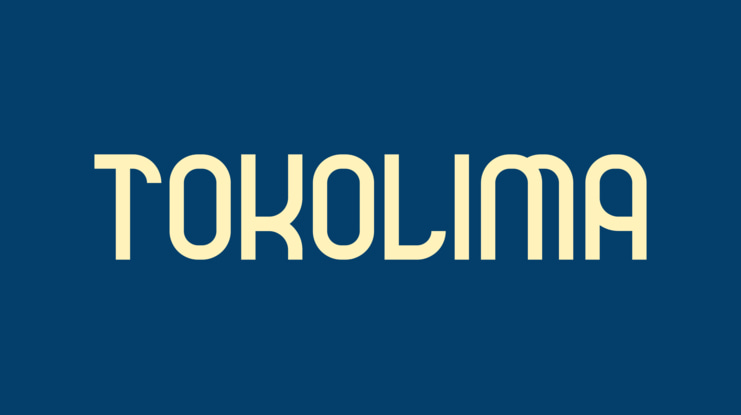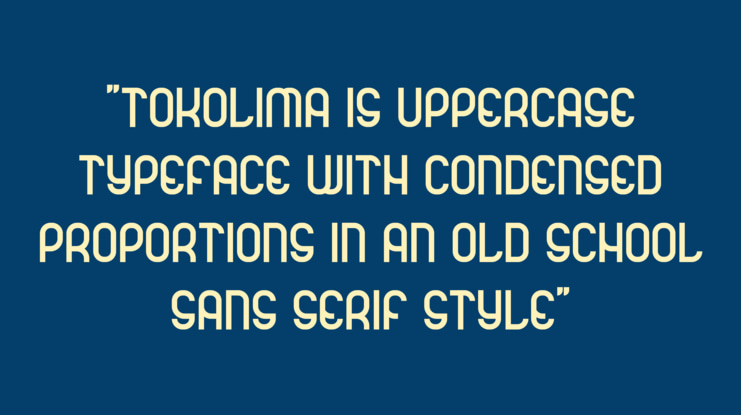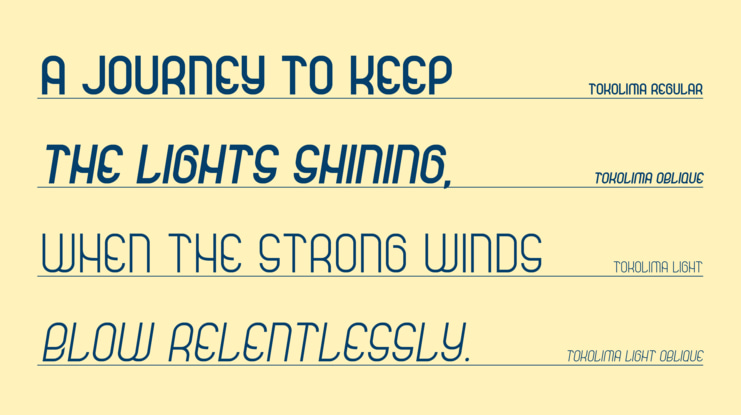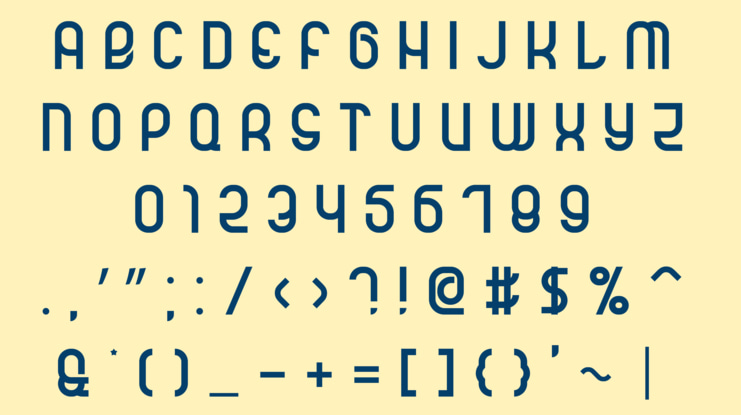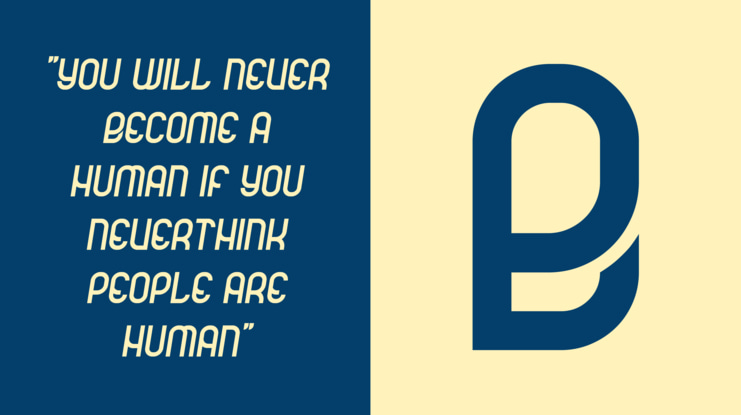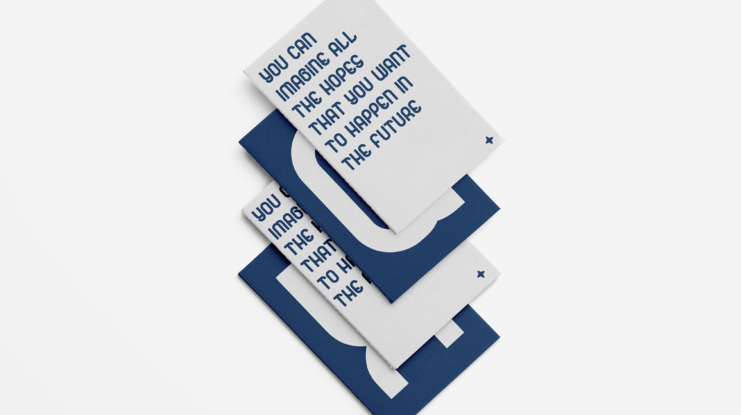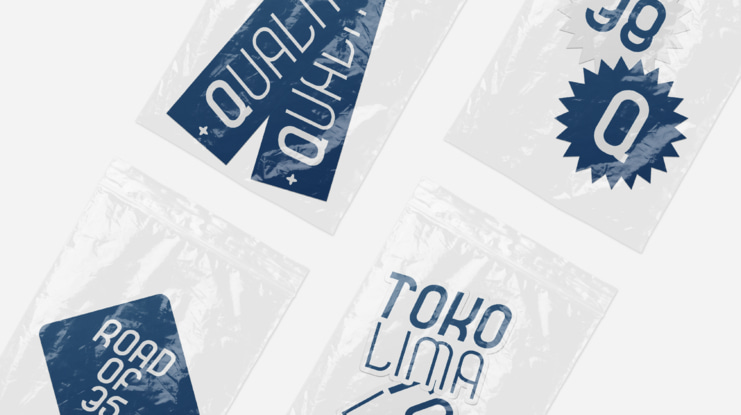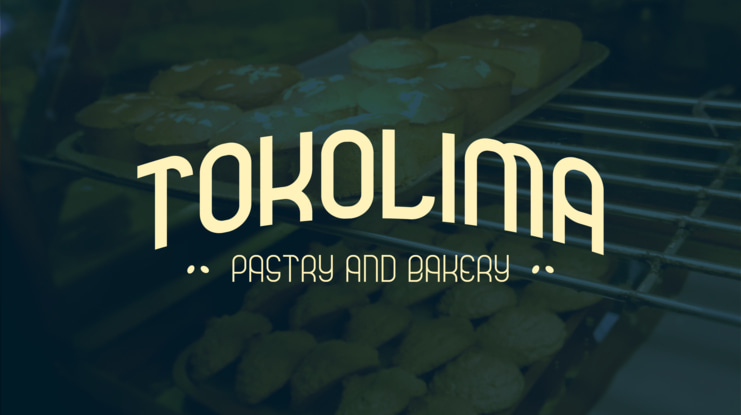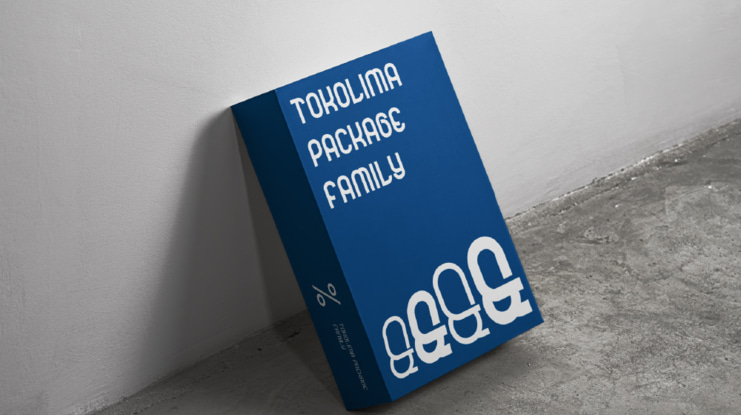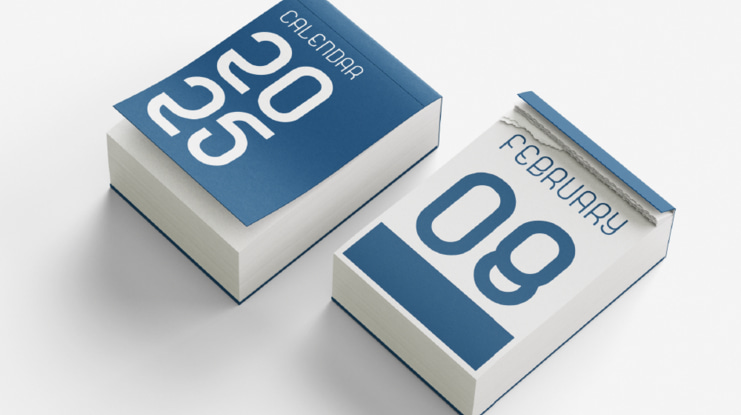
TOKOLIMA Font
TOKOLIMA is a typeface designed inspired by the nameplates of old shops in Southeast Asia, especially in Indonesia. Designed with an uppercase letter shape with condensed proportions, a sans serif style with an old school touch providing an attractive accent as a display font.